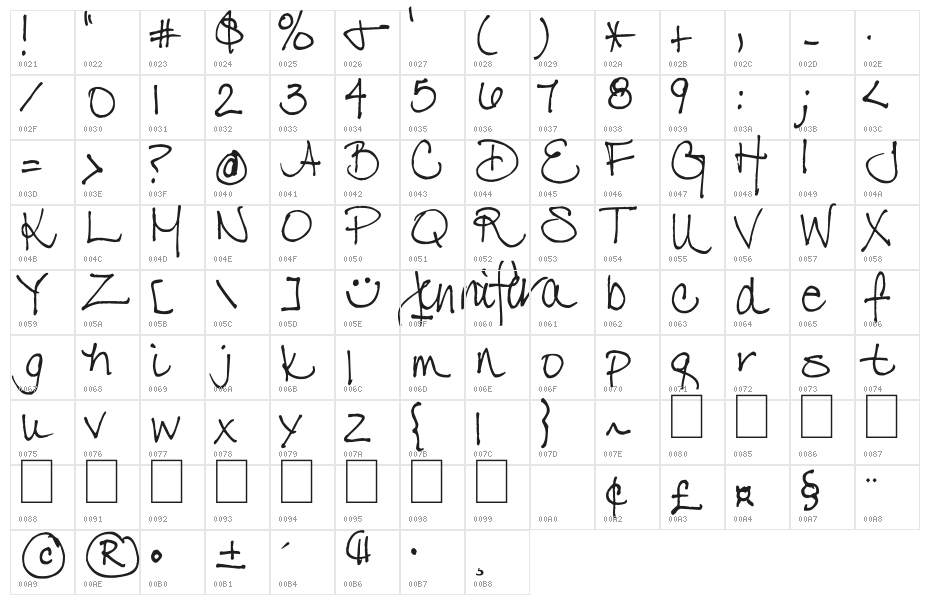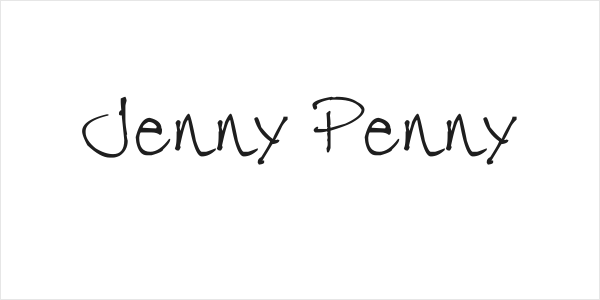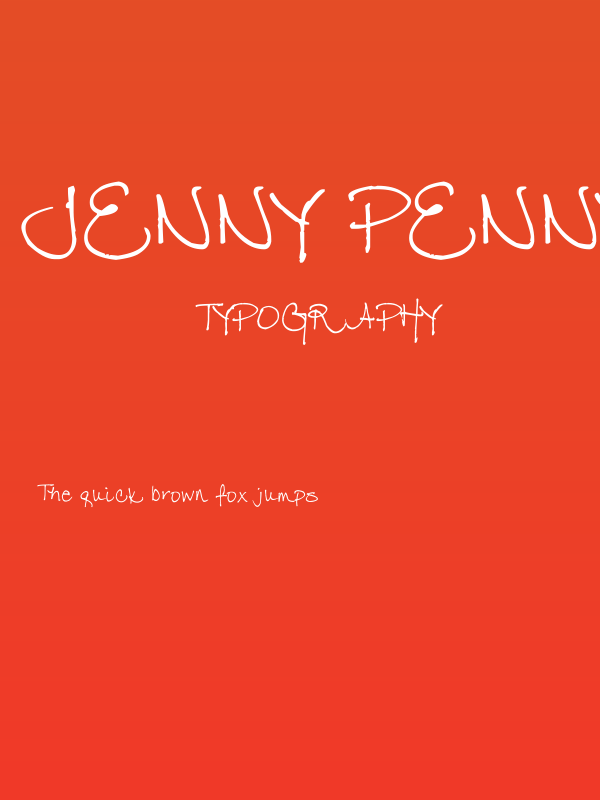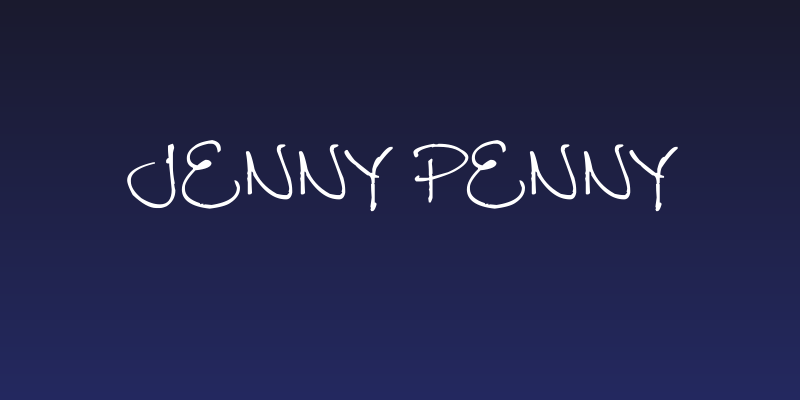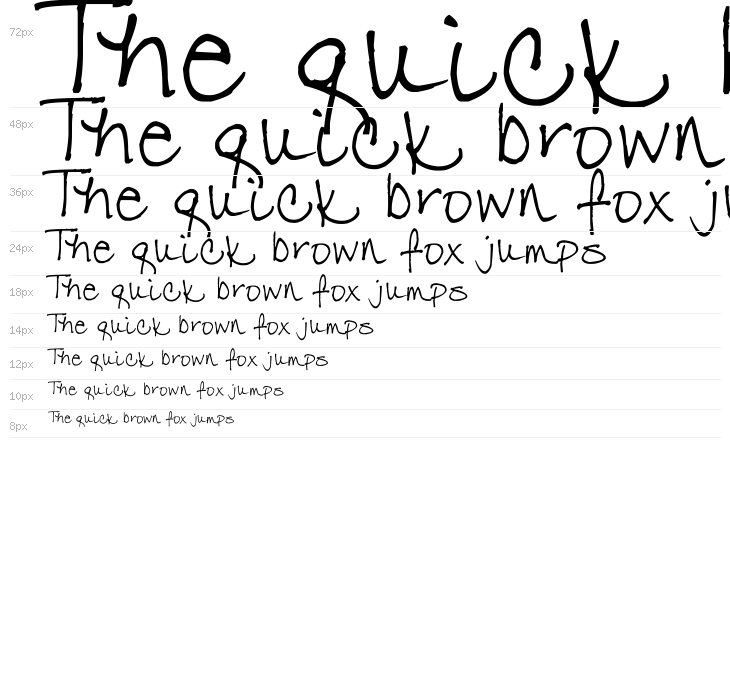
Jenny Penny Font
Jenny Penny Description
This font exhibits a playful and casual handwritten style, characterized by its fluid and slightly irregular strokes. The uppercase letters are bold and expressive, while the lowercase letters maintain a consistent flow, adding to the font's informal charm. The numerals are clear and legible, with a slight tilt that complements the overall handwritten aesthetic. Special characters are creatively designed, enhancing the font's versatility. The font's unique personality makes it suitable for projects that require a personal touch, such as invitations, greeting cards, or creative branding.
| Proposed Projects | Ideal for invitations, greeting cards, creative branding, and personal projects. |